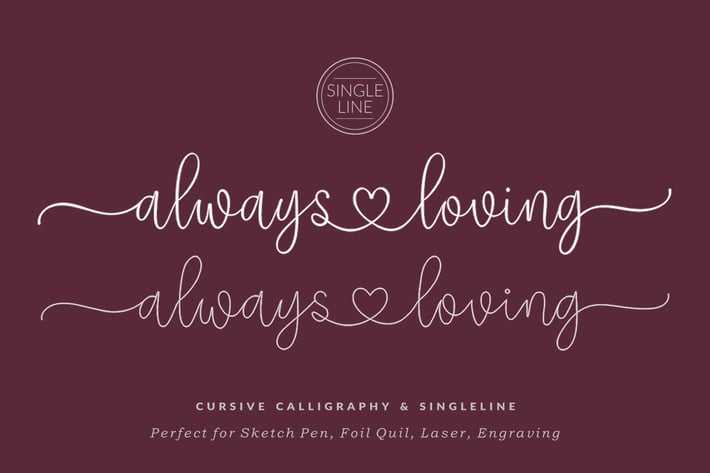
Always Loving - Singleline and Calligraphy Font
Always Loving is a Chic and Lovely Calligraphy font, described by a Love touch with natural handwritten style, perfect for your favorite projects.
Fall in love with its incredibly distinct and timeless style and use it to create spectacular designs!